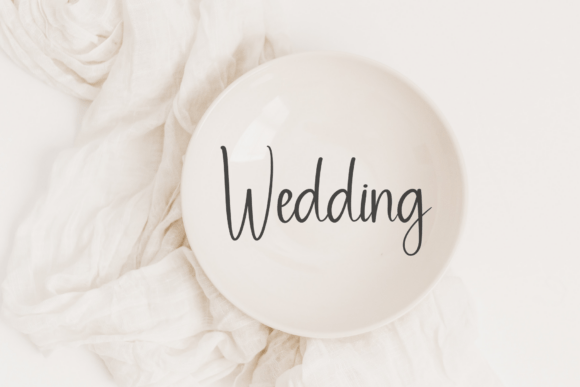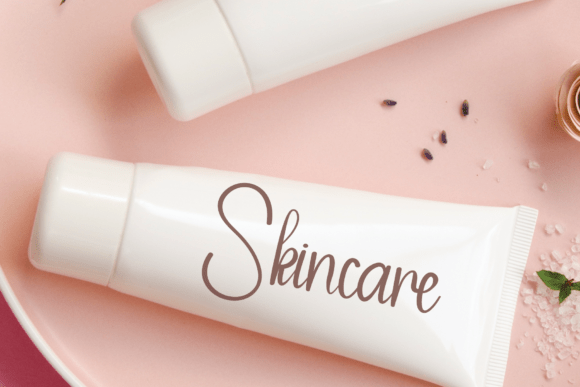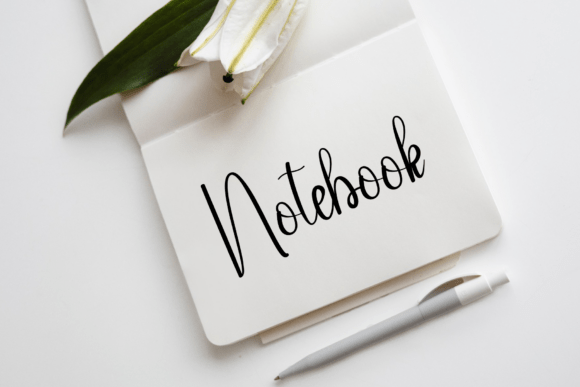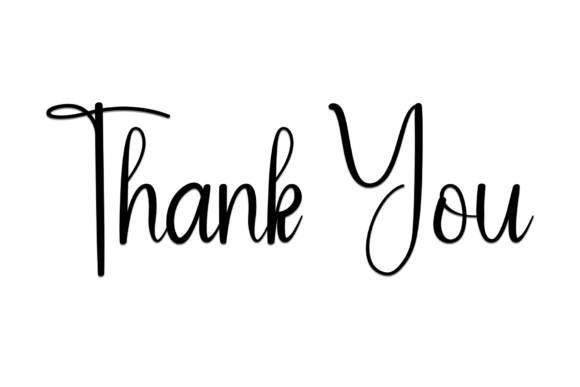
The Magical World of Disney Font: A Designer’s Delight
I’ll never forget the time I was working on a project for a children’s birthday party, and my client asked me to create a custom invitation that would make their little ones feel like they’re part of a fairy tale. I spent hours scouring the internet for the perfect font, and then I stumbled upon the Disney Font – a sweet and beautiful handwritten font that features characters that dance along the baseline. It was love at first sight! ✨
As a designer, I’m always on the lookout for fonts that can add a touch of magic to my projects. Here’s what I think about the Disney Font:
- ✅ It’s incredibly versatile and can be used for a wide range of design projects, from invitations and party decorations to branding and advertising materials.
- ✨ The dancing characters along the baseline add a playful and whimsical touch that’s perfect for projects that need a bit of personality.
- ✅ The font is highly legible, even at small sizes, making it perfect for use in body text or captions.
However, there are a few quirks to be aware of:
- ⚠️ The font can be a bit finicky when it comes to kerning, so be prepared to do some manual adjustments to get the spacing just right.
- 🤔 Some of the characters, like the lowercase “g” and “y”, can be a bit tricky to read if you’re not used to the font.
The Story Behind Disney Font
The Disney Font was inspired by the classic Disney animations of the 1930s and 1940s. The font’s creator, a talented type designer, wanted to capture the magic and whimsy of these beloved films in a font that would be perfect for designers and crafters alike. And so, the Disney Font was born – a sweet and beautiful handwritten font that’s sure to delight designers and audiences alike.
| Font Name | Disney Font |
| Author | ArtLine Design |
| What is the Disney Font? | The Disney Font is a sweet and beautiful handwritten font featuring characters that dance along the baseline. |
| What can I use the Disney Font for? | The Disney Font is perfect for a wide range of design projects, from invitations and party decorations to branding and advertising materials. |
| Is the Disney Font easy to read? | Yes, the Disney Font is highly legible, even at small sizes, making it perfect for use in body text or captions. |